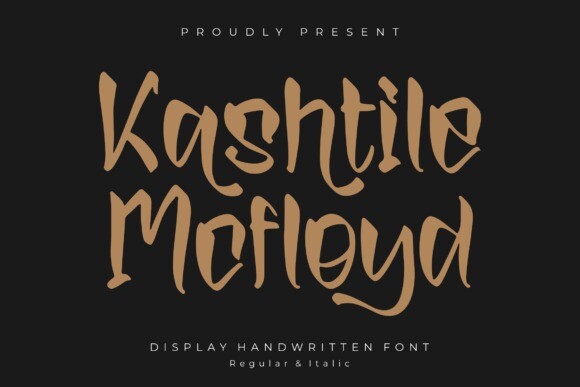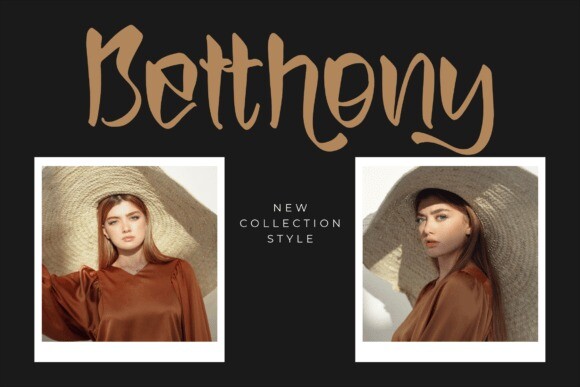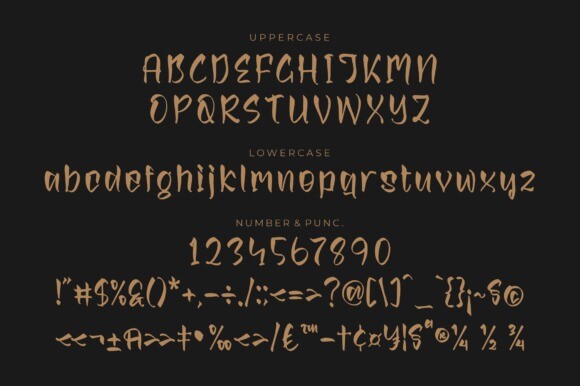
Kashtile Mcfloyd Font
Kashtile Mcfloyd Font – Display Handwritten Font , from Perspectype Studio, suitable for any projects such as: logos, branding projects, homeware designs, product packaging, mugs, quotes, posters, shopping bags, t-shirts, book covers, name card, invitation cards, greeting cards, label, photography, watermark, special events, and all your other lovely projects that need a beautiful script taste.